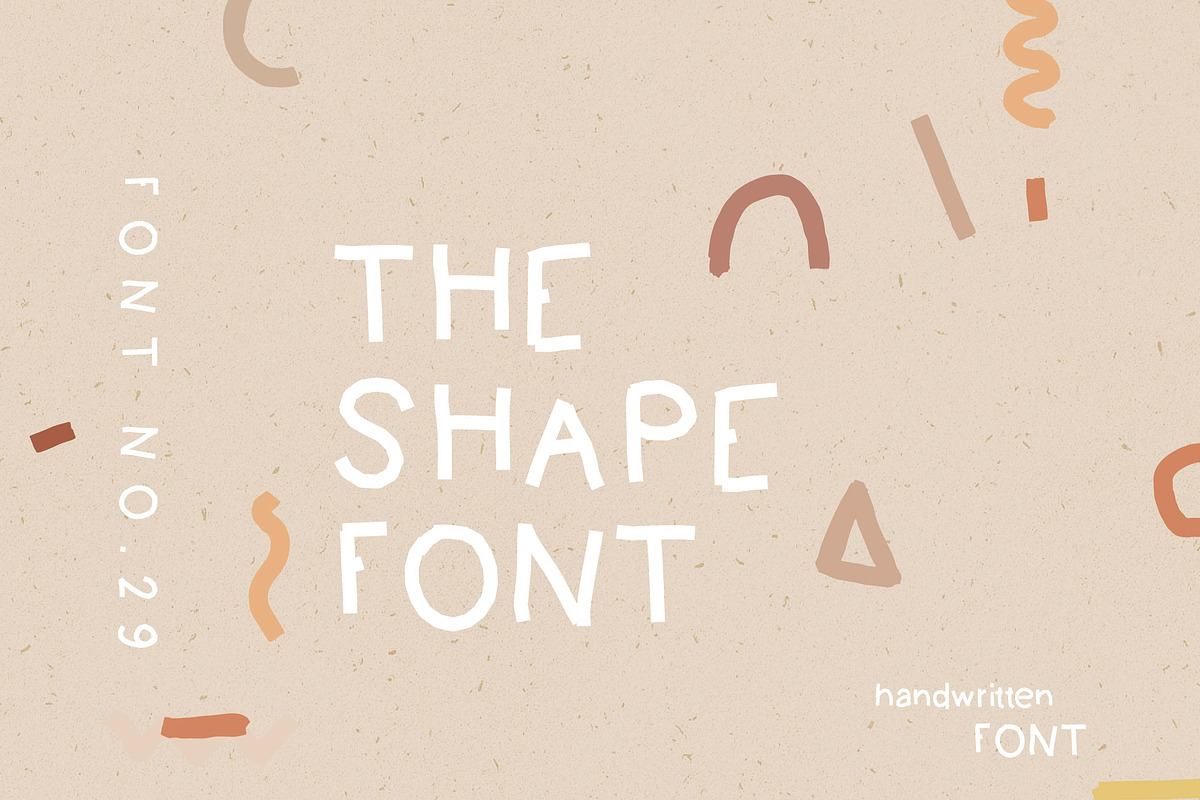
The THE SHAPE FONT / Bonus Illustrations Free Download is a modern and versatile font that blends geometric shapes with clean, minimalistic design. This font is perfect for creating bold logos, branding, posters, websites, and social media graphics that need a contemporary and stylish touch. With its unique structure, THE SHAPE FONT adds a dynamic feel to your typography. Additionally, the included bonus illustrations bring extra creativity to your designs, giving you more tools to enhance your projects. Please note, for commercial use, a license purchase is required. However, you can easily download the THE SHAPE FONT / Bonus Illustrations Free Download for free for personal use and explore its creative potential. Whether you're working on a tech brand, advertising campaign, or any creative project, this font and its bonus illustrations will elevate your designs with a fresh, modern look. Download the THE SHAPE FONT / Bonus Illustrations Free Download today and add a unique touch to your typography.